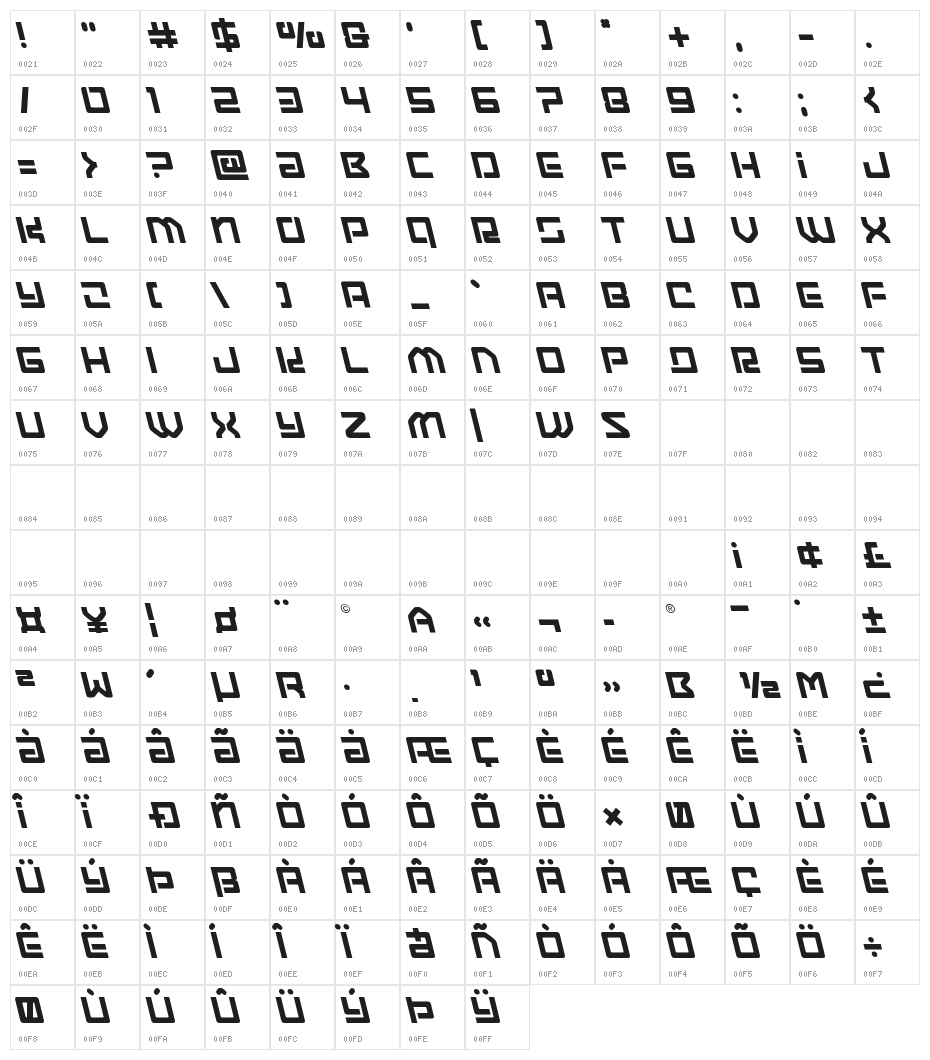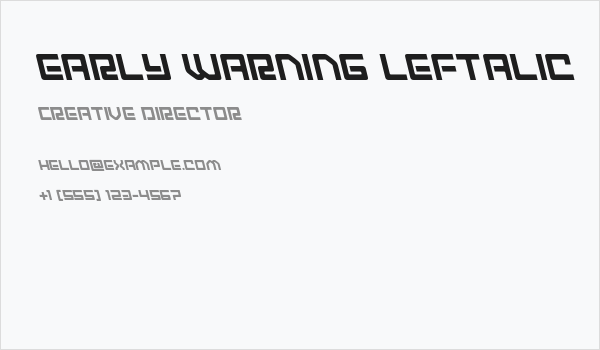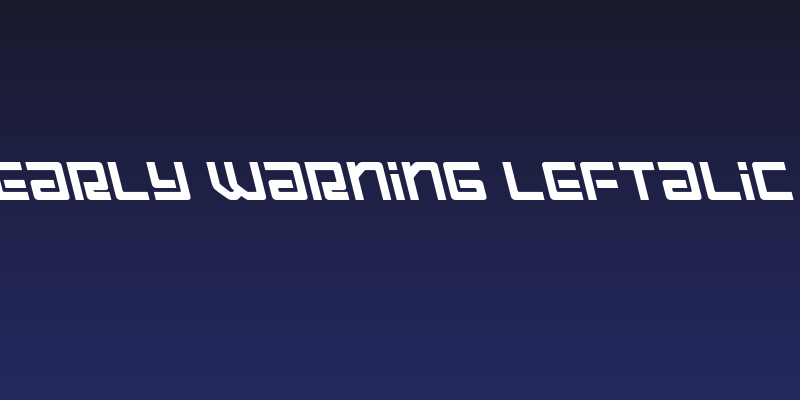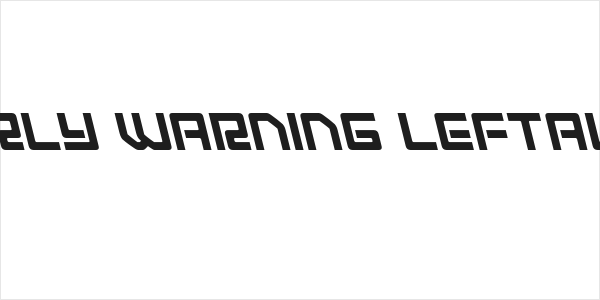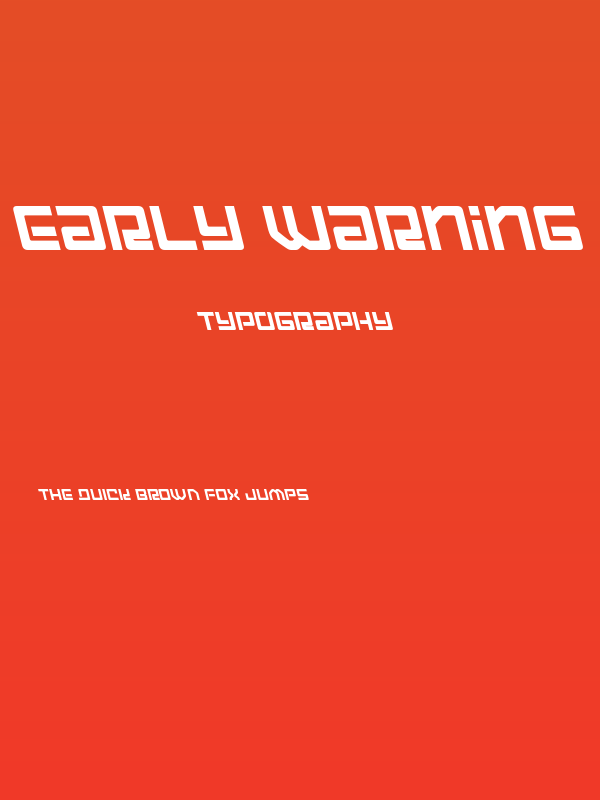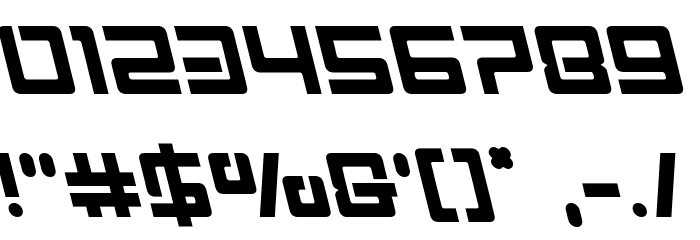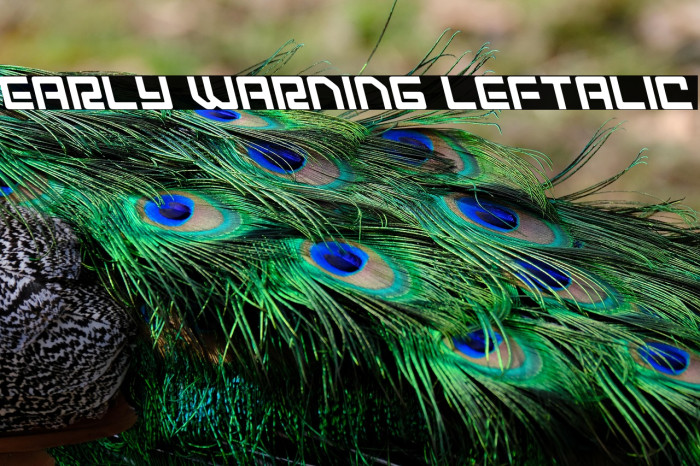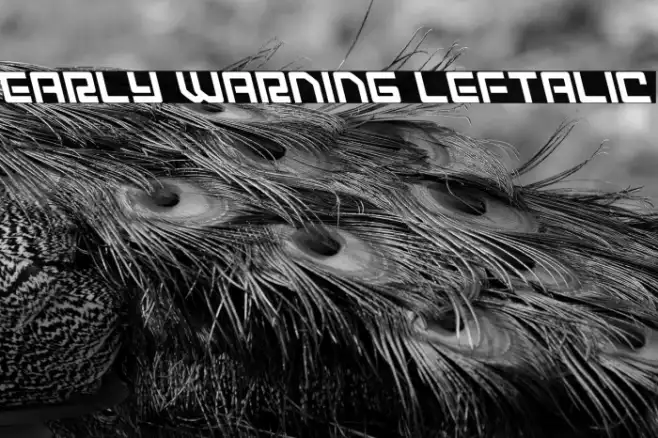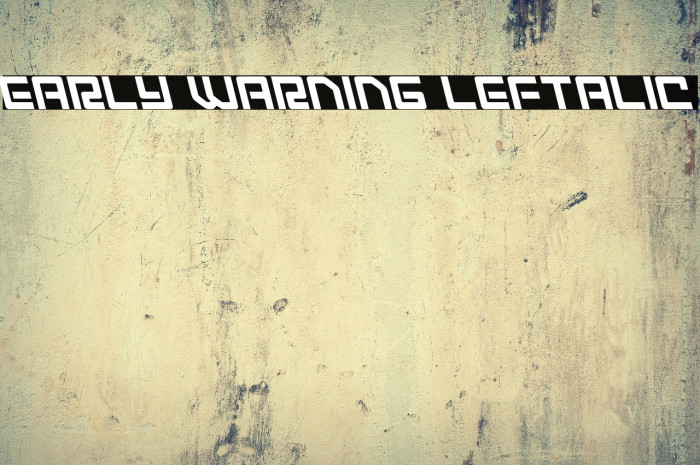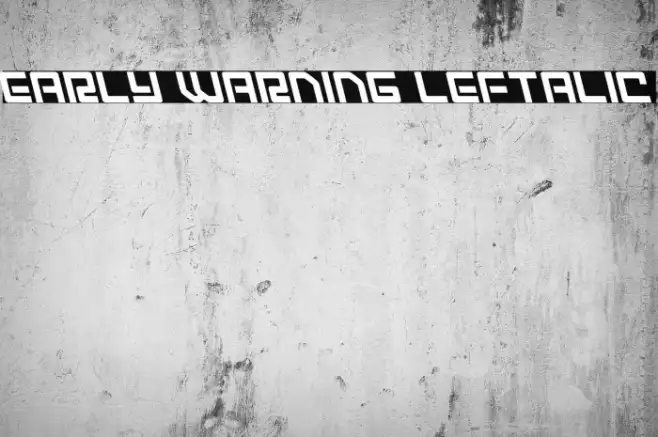
Early Warning Leftalic Font
Early Warning Leftalic Description
This font features a bold, angular design with a futuristic and geometric aesthetic. The characters are constructed with sharp edges and a consistent thickness, giving it a strong and assertive presence. The uppercase and lowercase letters maintain a uniform style, with a slight slant that adds a dynamic feel. The numbers and special characters follow the same design principles, ensuring cohesion across all elements. The font's style is reminiscent of digital or sci-fi themes, making it suitable for projects that require a modern and edgy look.
| Proposed Projects | Ideal for sci-fi themed projects, technology branding, video game titles, and modern digital interfaces. |